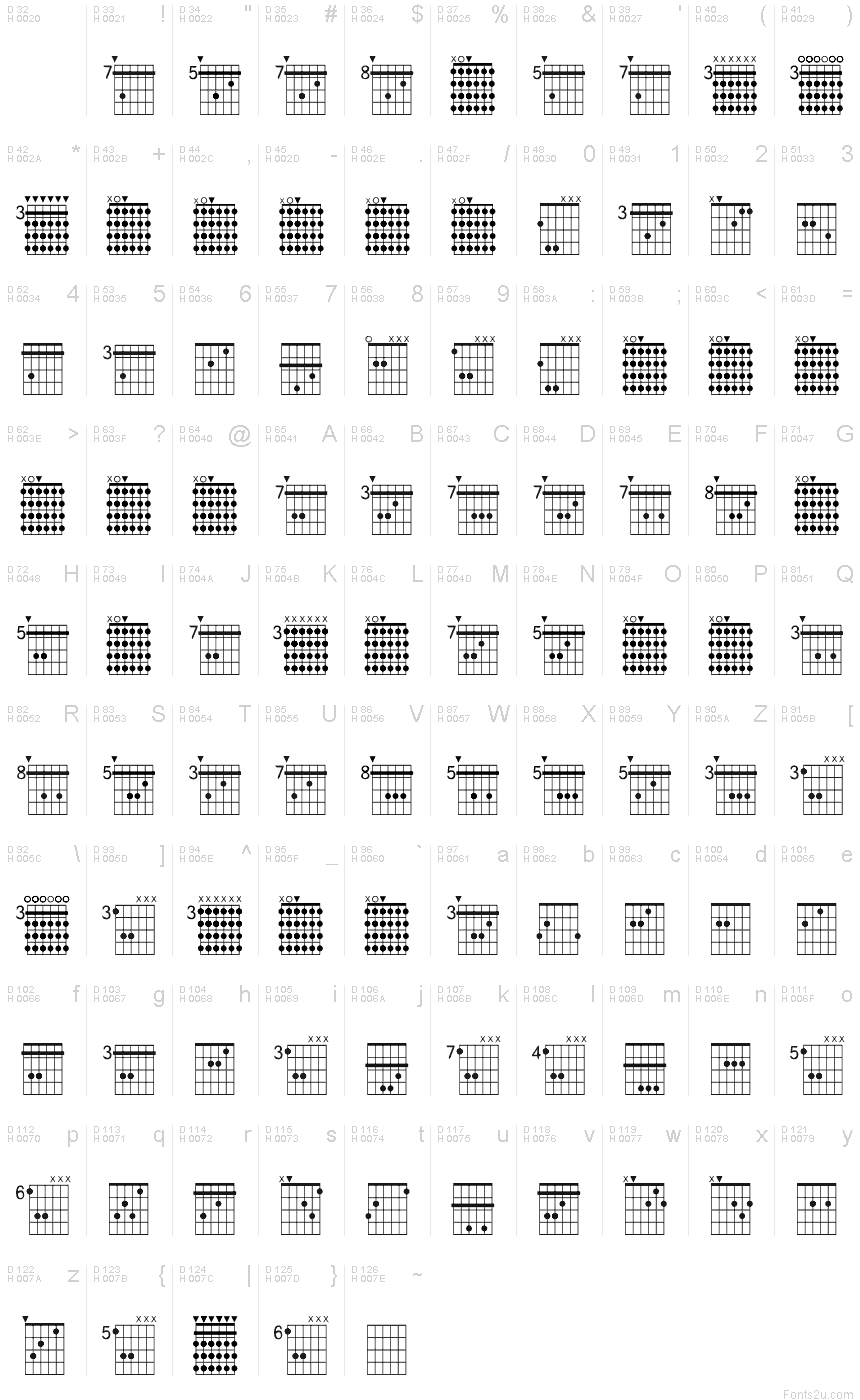
FarHat Acordes
Far Hat Acordes font by Farhat Copyright is a free music-notation dingbat typeface that turns simple keystrokes into clean guitar chord diagrams. Each glyph drops a crisp grid, bold fret number, and solid finger dots, so charts look like they were laid out by hand in a pro method book-not cobbled together with shapes. The lines are sturdy and inky, reading clearly even when printed small or photocopied.
Using Far Hat Acordes, you can lay out songbooks, classroom worksheets, chord posters, online tutorials, lead sheets, and rehearsal handouts in minutes. This free font keeps spacing consistent across all diagrams, which makes complex progressions easy to follow at a glance. For polished results, pair it with a neutral sans serif for titles and lyrics, and keep chord symbols slightly larger than the text around them.